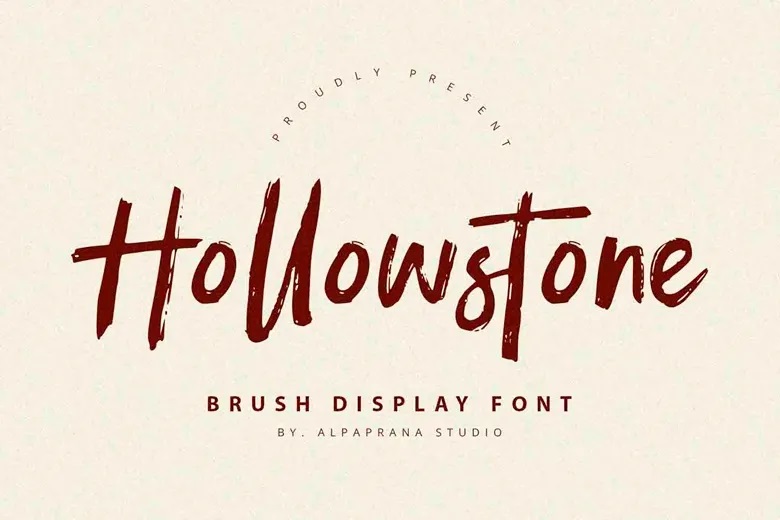
Hollowstone Font
Hollowstone is a brush font that has natural and distinct feels. It will be ideally applied in Branding, Logo Design, Lettering, Logotype, Clothing, Poster, magazine, packaging, posters, shopping bags, t-shirts, book covers, photography, and special events and other design projects.
Hollowstone Brush Script Font